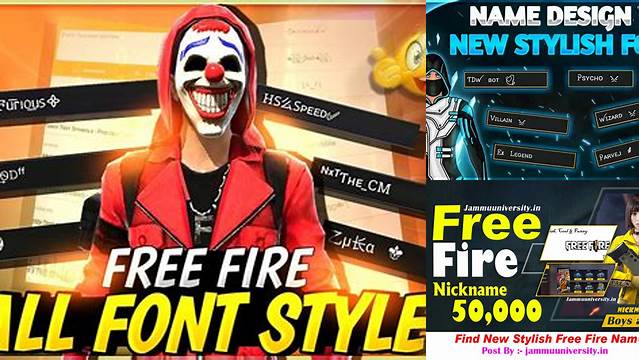
Cool Free Fire Name Fonts: New Styles & Tips
Hey there, Free Fire fanatics! Are you looking to spice up your in-game name and stand out from the crowd? Well, you've come to the right place! This article is your ultimate guide to the coolest Free Fire name fonts and new styles to help you create a unique and eye-catching nickname. We'll dive into different fonts, symbols, and techniques to make your name pop and reflect your personality. Get ready to transform your player ID and make a lasting impression on the battlefield!
Unleashing the Power of Free Fire Name Fonts
Let's be honest, guys, a plain name in Free Fire is, well, a bit boring. It's like showing up to a party in a plain t-shirt when everyone else is rocking a cool outfit. That's where Free Fire name fonts come into play. They're the secret weapon for making your in-game identity truly unforgettable. But it's not just about looking cool; a well-designed name can also intimidate opponents and make you instantly recognizable. Think of it as your personal brand in the game. A unique font can represent your playing style, clan affiliation, or just your overall vibe. Whether you're a hardcore rusher, a tactical strategist, or a friendly teammate, the right font can communicate that. Finding the perfect font involves experimenting with different styles and symbols. You can create names that are elegant, aggressive, playful, or mysterious. The possibilities are endless. The key is to find something that resonates with you and reflects your personality. The right font is not just about aesthetics; it's also about making a statement. It's about setting yourself apart and letting your personality shine through. It is also an excellent way to show your creativity and get the attention of other players. To get started, there are many font generators available online. These tools allow you to type in your desired name and see it transformed into a variety of unique fonts and styles. You can preview different options and choose the one that you like best. Also, many of these generators offer additional features, such as the ability to add special characters and symbols. Experimenting with these tools is a great way to find the perfect name that reflects your personality and playing style.
Why Choose Unique Fonts?
Why bother with a fancy font, you ask? Well, there are several awesome benefits to using unique fonts in Free Fire.
- Stand Out: In a game with millions of players, a unique font helps you stand out from the sea of generic names. It's like having a custom avatar; it makes you instantly recognizable.
- Express Yourself: Fonts allow you to express your personality and playing style. Are you a fiery attacker? Choose a bold, aggressive font. A strategic player? Maybe something more elegant and mysterious.
- Intimidation Factor: A cool-looking name can intimidate opponents before the match even starts. It's a subtle psychological advantage.
- Team Identity: If you're part of a clan, a custom font can help solidify your team's identity and create a sense of unity.
- Increased Visibility: A visually appealing name is more likely to be noticed by other players, which can lead to more friend requests and social interactions.
Top Free Fire Name Font Styles You Should Try
Alright, let's get into the nitty-gritty! Here are some of the top Free Fire name font styles that you should definitely try. We'll cover various categories to cater to different tastes. Remember, the best font is the one that suits your personality and gaming style the most. Don't be afraid to experiment and try new things. The world of font styles is vast and diverse, offering something for everyone.
1. Classic & Elegant
For those who prefer a touch of sophistication, classic and elegant fonts are a great choice. These fonts often use sleek lines and subtle embellishments, creating a refined look. Consider fonts like cursive, script, or simple sans-serif styles. These fonts can convey professionalism and a sense of experience. They are perfect if you want a name that looks clean, professional, and easy to read. These fonts are timeless and suitable for players of all levels. They can also make you seem more mature and collected, which can be beneficial in the game. Classic fonts are versatile and work well in most in-game situations. Think of it like choosing a well-tailored suit – it always looks good. When selecting a classic font, pay attention to readability. It’s essential that your name is easily readable, especially during fast-paced gameplay. Avoid overly elaborate fonts that might be difficult to decipher at a glance. Experiment with different variations of classic fonts until you find one that perfectly matches your style. Also, remember that the font you choose reflects your personality. Choose a font that you genuinely like and enjoy.
2. Bold & Aggressive
If you're a rusher or prefer an aggressive playstyle, bold and aggressive fonts are the way to go. These fonts typically use thick strokes, sharp edges, and strong visual elements to create a sense of power and dominance. Try fonts with bold outlines, shadow effects, or even fonts that incorporate weapon-themed elements. These fonts are designed to make a statement and convey your ruthless approach to the game. They can intimidate opponents and announce your presence on the battlefield. These types of fonts are perfect for players who like to take charge and dominate the competition. It's like saying,